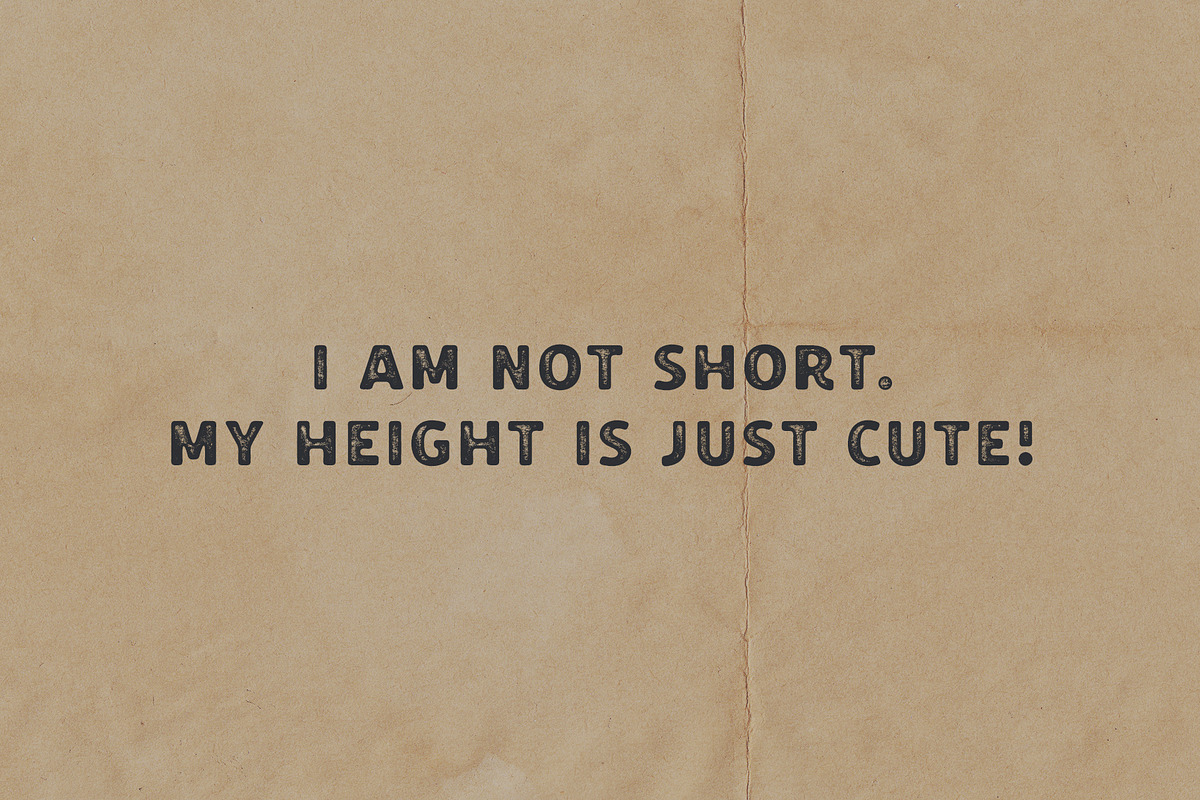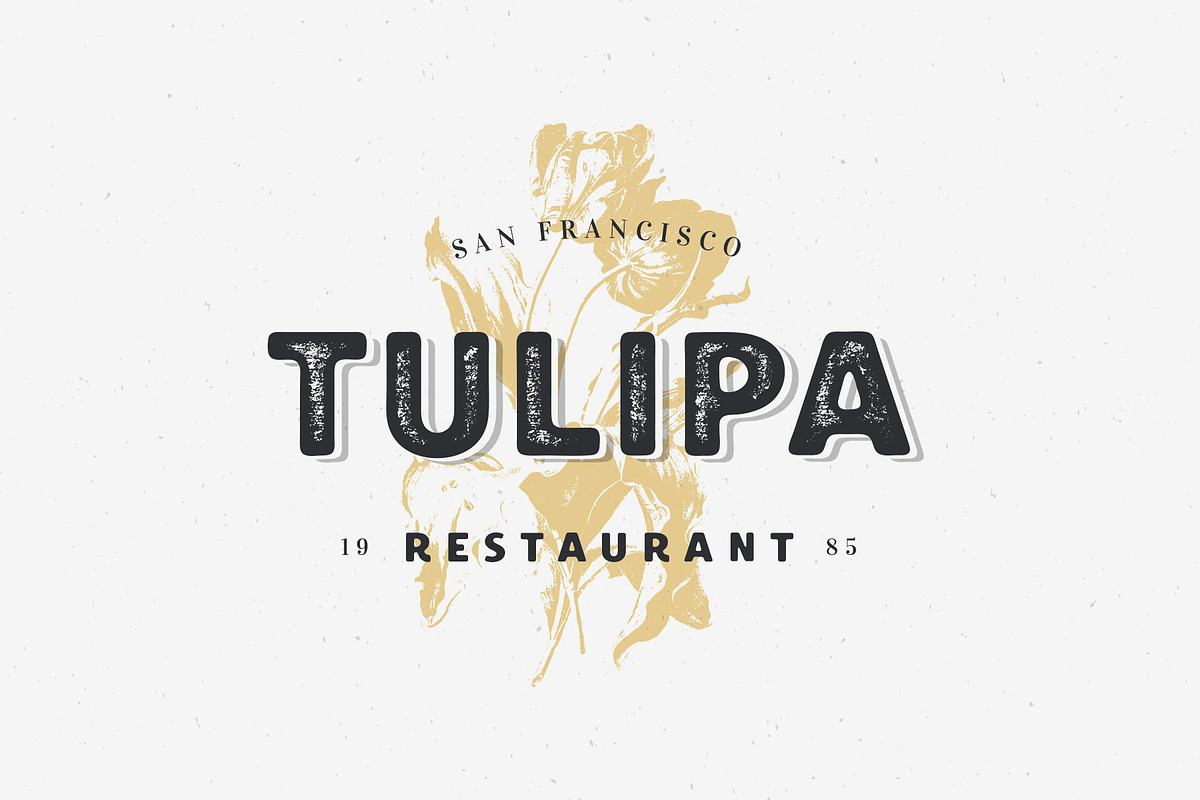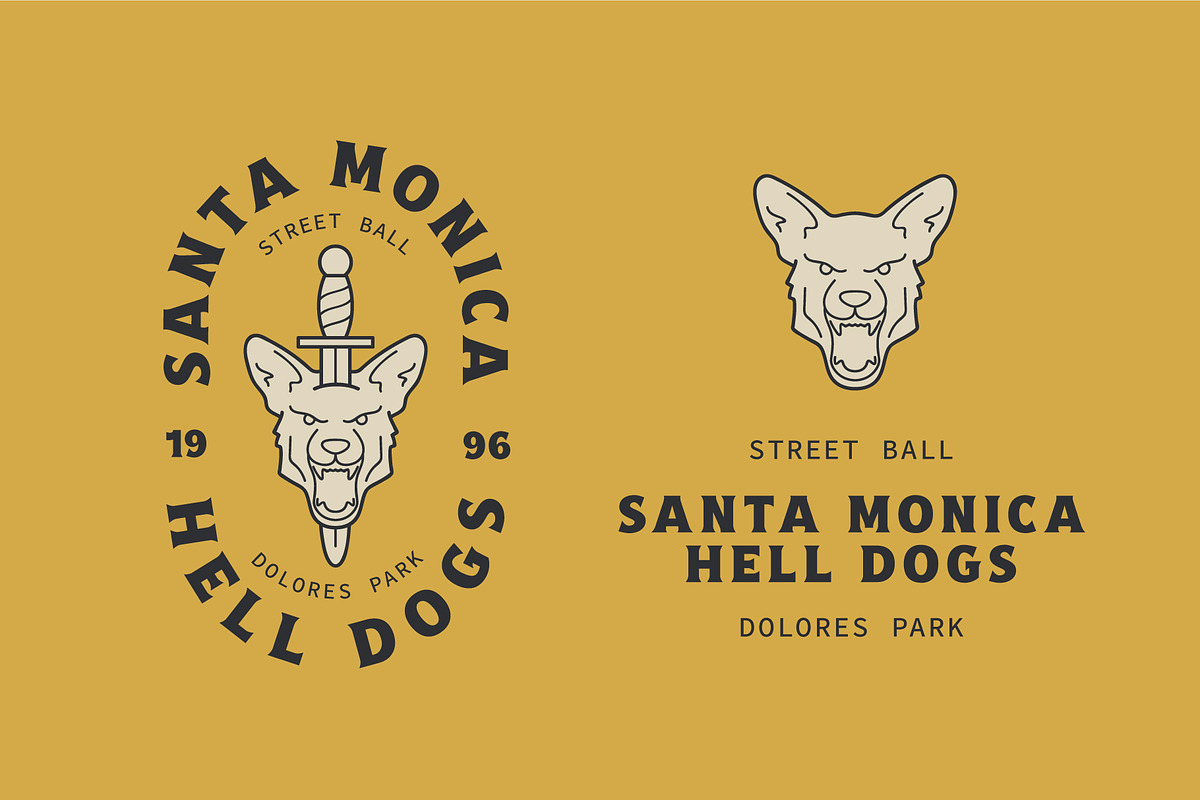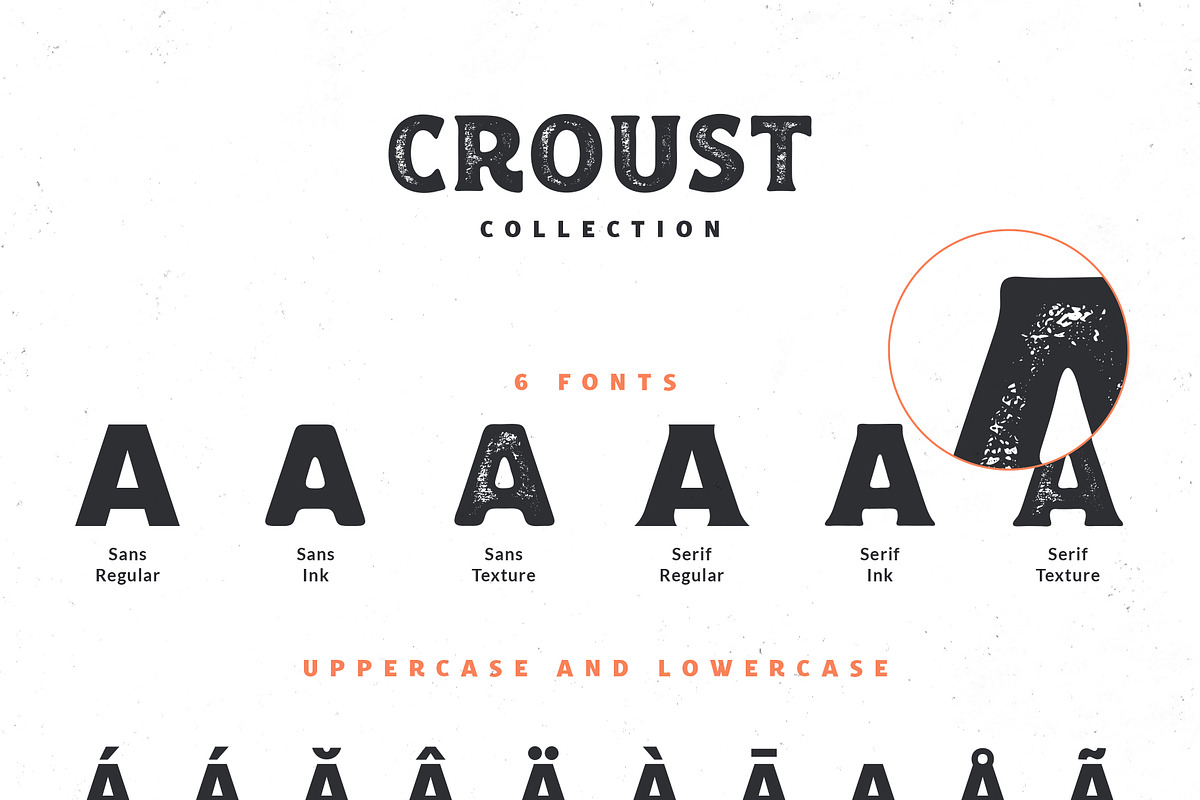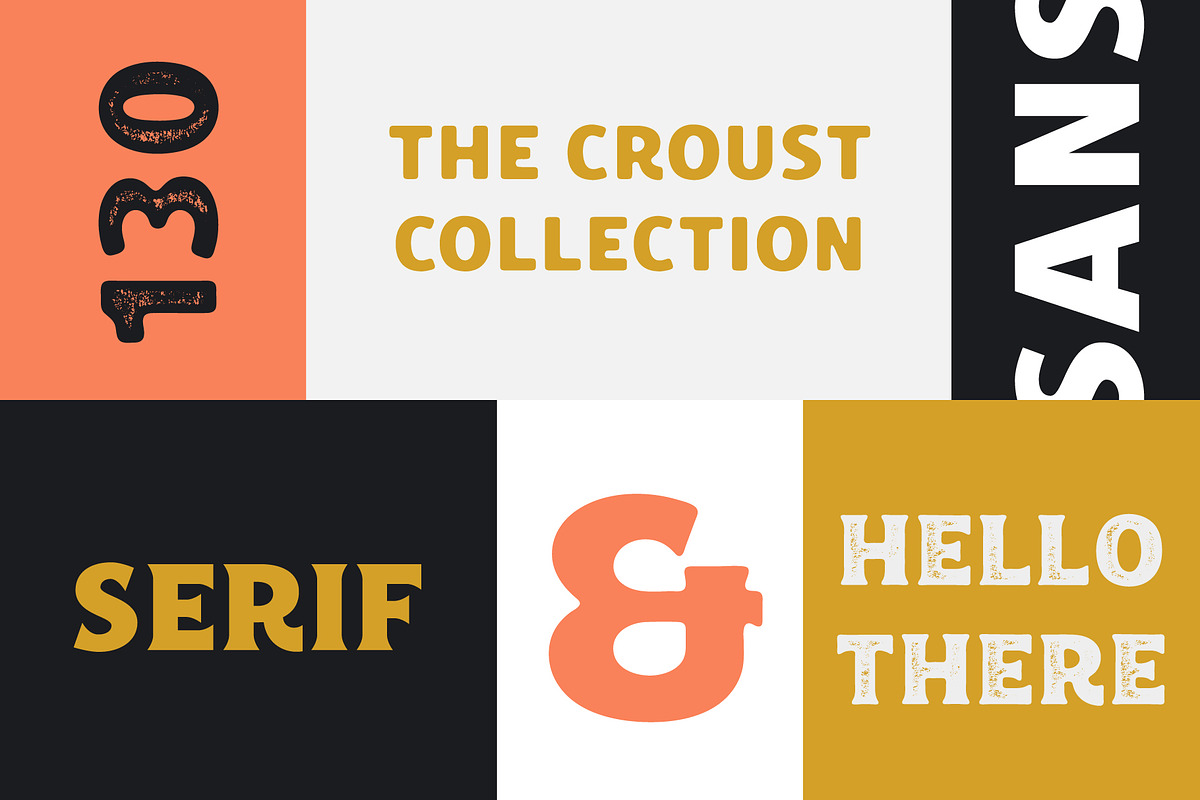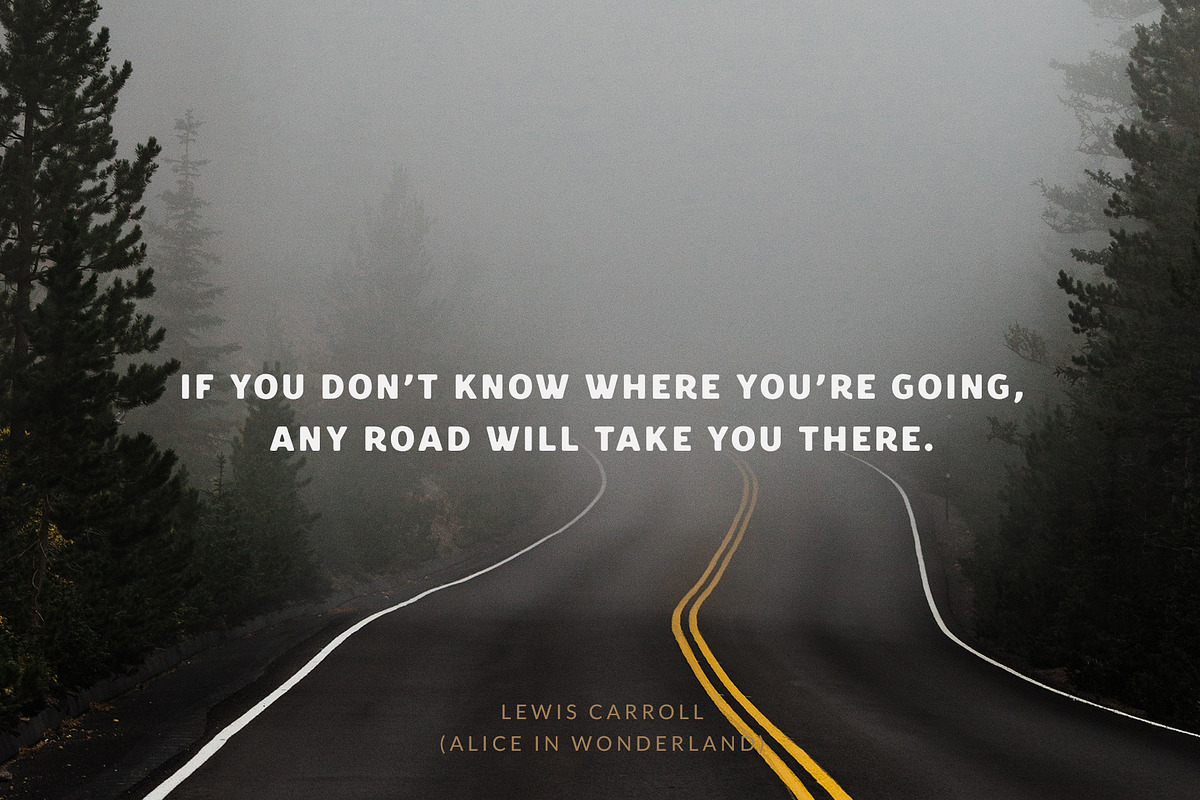
Croust Font Collection
Croust Font Collection is a font family that comes in 2 different styles: Sans and Serif. What is nice is that each style has 3 substyles: Clean or Regular, Ink and Texture.
All 6 fonts are coming with upper and lowercase Basic Characters, Numbers, Marks and Punctuation. Diacritics are also available for Western, Central and South European Languages.